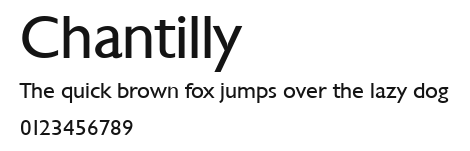
• Font Name: Chantilly
About Chantilly.ttf
Chantilly.ttf is a modern, elegant sans-serif font designed for ultimate readability and visual harmony. Perfect for branding, headlines, web design, and print materials.